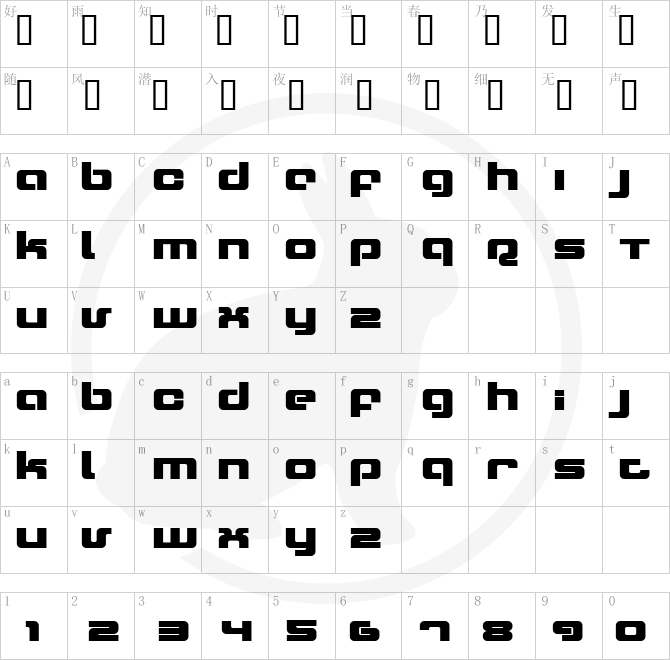
- Font Name:Xeron
Xeron.ttf is a very beautiful artistic font, Xeron.ttf is widely used in the design and printing of various books and pictures,Xeron.ttf has a strong visual impact,Xeron.ttf is a commonly used font in newspapers, magazines and books, and is used in posters, e-commerce Poster design, store design, logo design, font design and other fields.Xeron.